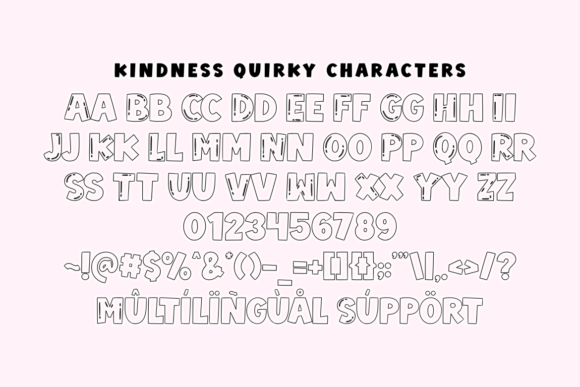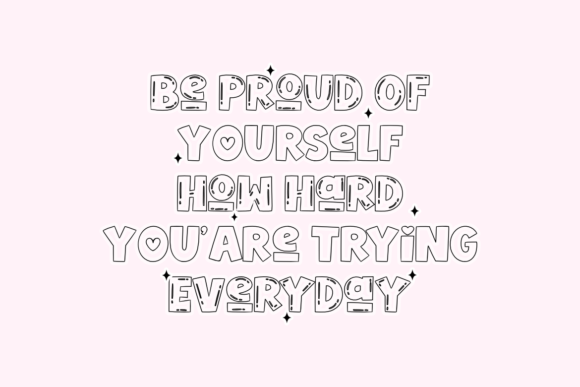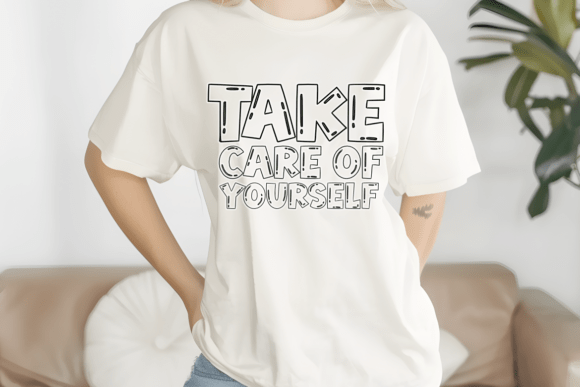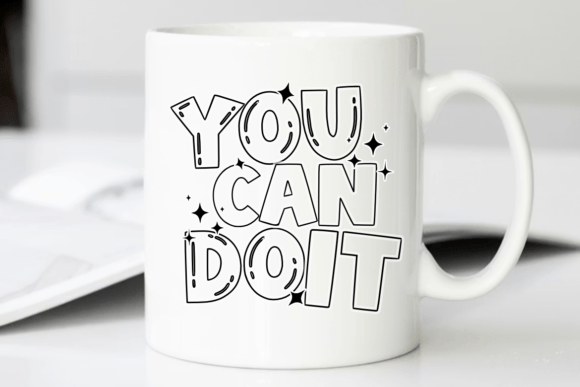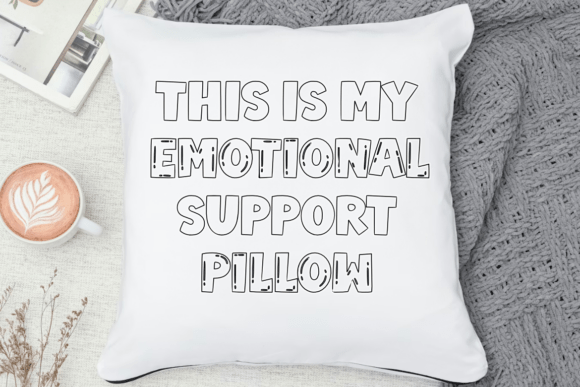
Unleash Your Creativity with Kindness Quirky Outline Font
Have you ever sat in front of your computer, staring blankly at a blank canvas, waiting for that elusive spark of inspiration to strike? We’ve all been there. But what if I told you that the perfect spark is just a font away? Introducing Kindness Quirky Outline Font, a charming and quirky retro display font that’s guaranteed to bring a smile to your face and a dash of whimsy to your designs.
This delightful font is more than just a pretty face – it’s a powerful tool for creatives looking to add a touch of personality to their work. With its soft curves and bold appearance, Kindness Quirky Outline Font is perfect for creating eye-catching headlines, posters, social media graphics, and branding that truly stands out from the crowd.
Key Features of Kindness Quirky Outline Font
- Font Family: Kindness Quirky Outline
- Unique Characteristics: Quirky, handwritten, and outline font style with a touch of whimsy and playfulness, making it perfect for creative and artistic projects
Designer Review: Kindness Quirky Outline Font
I’ve had the chance to work with the Kindness Quirky Outline Font, and I must say, it’s a unique addition to any design project. ✨ The font’s quirky and playful nature makes it perfect for creative and whimsical projects, such as children’s books, educational materials, and even some advertising campaigns.
- ✨ The font’s outline style gives it a fun and lively feel, making it great for projects that require a bit of personality.
- ✨ The font’s quirky nature also makes it easy to customize and manipulate, allowing designers to get creative with their designs.
- ✨ The font is also highly legible, making it suitable for a wide range of projects, from small text to large headings.
However, there are some limitations to consider: ⚠️ The font may not be the best choice for projects that require a more professional or formal tone, as its playful nature may not be suitable for all audiences.
Overall, I think the Kindness Quirky Outline Font is a great addition to any designer’s toolkit. While it may not be perfect for every project, it’s a versatile font that can add a bit of personality to any design. With a bit of creativity, designers can use this font to create truly unique and engaging designs.
Getting the Most Out of the Kindness Quirky Outline Font
Here are some tips for getting the most out of the Kindness Quirky Outline Font:
- Use the font in combination with other design elements to create a cohesive visual identity.
- Play with the font’s quirks and imperfections to add character to your design.
The Kindness Quirky Outline Font is perfect for:
- Handwritten-style titles and headings.
- Whimsical and playful designs.
- Emphasizing important text or quotes
Alternatives to Kindness Quirky Outline Font
Pacifico is a beautiful, elegant script font that works well for invitations, wedding designs, and other creative projects. It has a relaxed, beachy vibe that is perfect for designs that need a touch of sophistication and playfulness. Compared to Kindness Quirky Outline Font, Pacifico is more refined and less quirky, making it suitable for designs that require a more polished look.
Great Vibes is a fun, modern script font that is ideal for designs that need a burst of energy and creativity. It has a unique, hand-drawn feel that makes it perfect for projects that require a personal touch. Compared to Kindness Quirky Outline Font, Great Vibes is more energetic and less whimsical, making it suitable for designs that need to stand out.
Carolyna Pro is a luxurious, elegant script font that is perfect for high-end designs, such as luxury branding, packaging, and advertising. It has a sophisticated, refined look that is sure to make a statement. Compared to Kindness Quirky Outline Font, Carolyna Pro is more formal and less playful, making it suitable for designs that require a touch of glamour and sophistication.